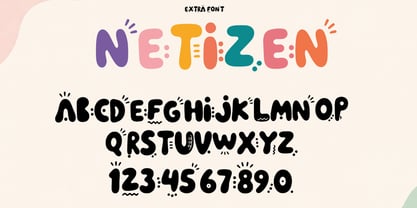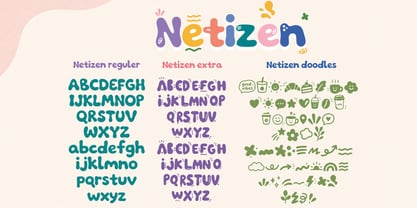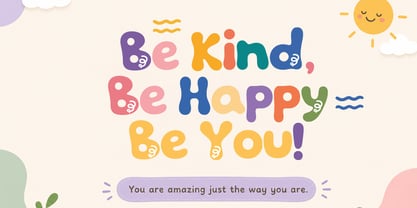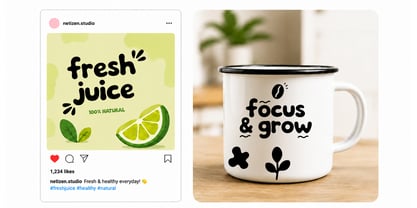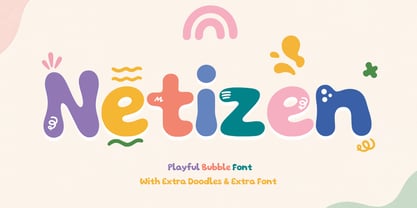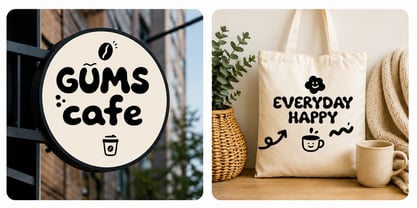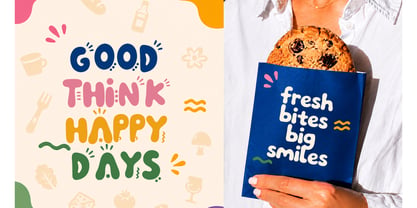
Netizen
The Netizen Font Family was designed by Muhammad Zaini and published by Cocodesign. Netizen contains 3 styles and family package options. More about this family
Netizen – Playful Bubble Font
Netizen is a cheerful and playful bubble display font designed to bring fun, creativity, and personality to any project. Featuring bold rounded letterforms, smooth curves, and whimsical details, this font is perfect for eye-catching designs that need a friendly and energetic touch.
Whether used for children's products, stickers, packaging, branding, social media graphics, classroom materials, invitations, or creative merchandise, Netizen delivers a joyful and memorable appearance that stands out effortlessly.
To make designs even more exciting, this package also includes a collection of matching doodle elements that complement the playful style of the font and help create unique compositions in seconds.